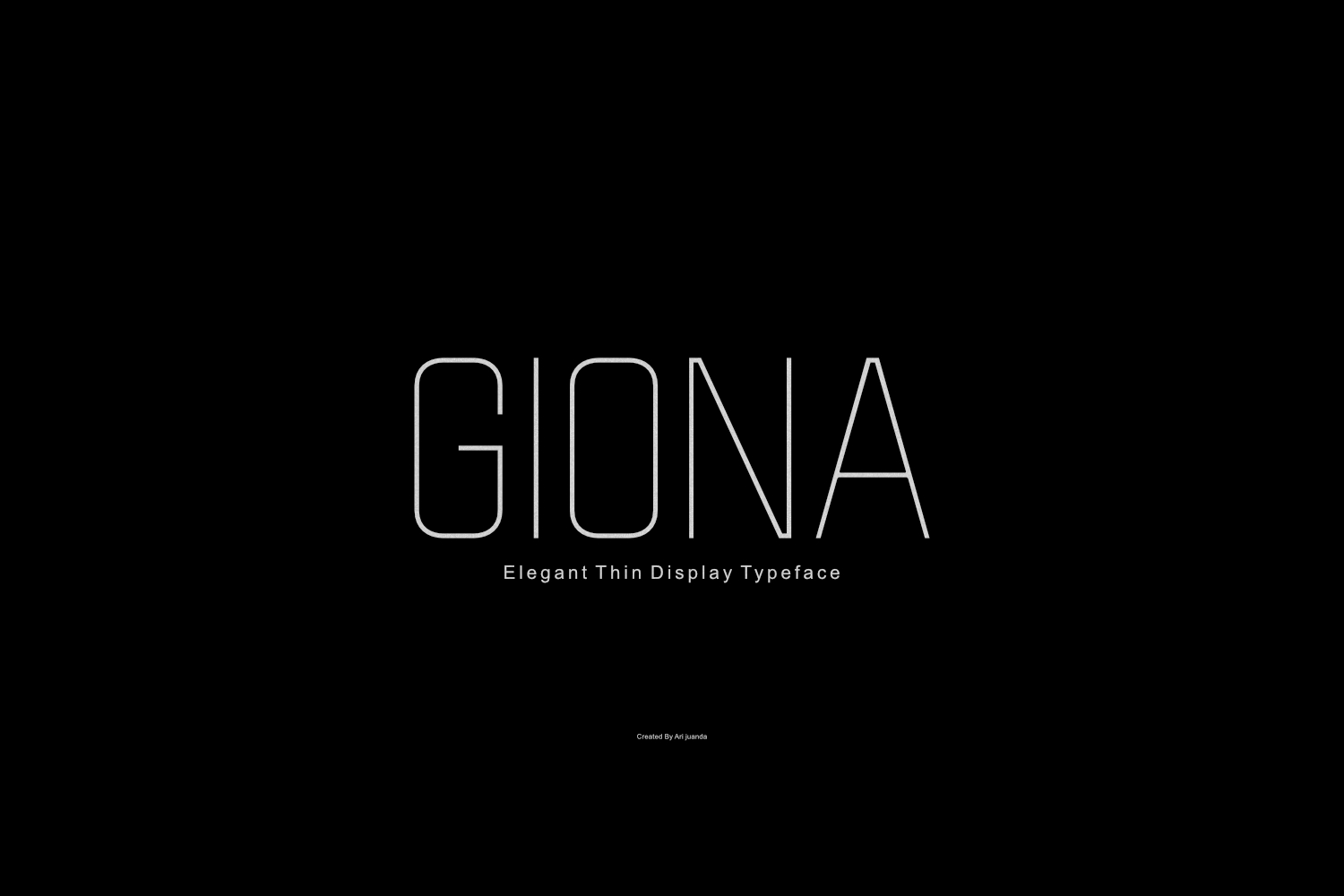
Giona Elegant Thin Condensed Display Font
Giona – Elegant Thin Condensed Display Font
Meet Giona, an elegant thin condensed display font designed for modern typography, minimalist branding, editorial layouts, fashion projects, and sophisticated visual identities. With its slender monoline construction, refined proportions, and distinctive geometric character, Giona creates a clean and contemporary look while maintaining a strong visual presence.
Giona features a thin and narrow display style that allows typography to feel lightweight, spacious, and elegant. Its carefully designed letterforms work beautifully at large sizes, making it ideal for headlines, titles, posters, logos, packaging, and other projects where typography needs to communicate a refined and modern aesthetic.
One of Giona's distinctive details is its carefully designed ink trap. Inspired by traditional typography techniques, the subtle cuts and refined intersections add extra character to the typeface while helping maintain clarity and visual balance. At display sizes, these details become part of Giona's personality, creating a sophisticated typographic style that feels both technical and artistic.
With its minimalist construction and elegant condensed proportions, Giona is an excellent choice when you need a thin display font, elegant font, minimalist font, condensed font, or modern typography with a distinctive personality.